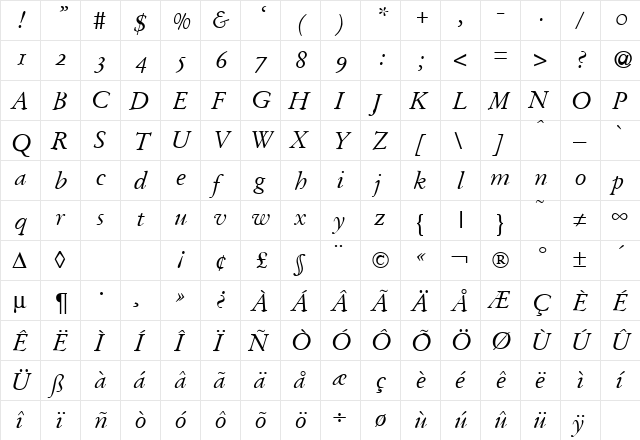
GaramondOriginalOsf RegularItalic Font Preview
GaramondOriginalOsf RegularItalic
Design Context for GaramondOriginalOsf Typeface
GaramondOriginalOsf is a composed and adaptable typeface that performs quietly and consistently across a wide range of design contexts. Its italic angle brings a sense of urgency and motion to the letterforms.